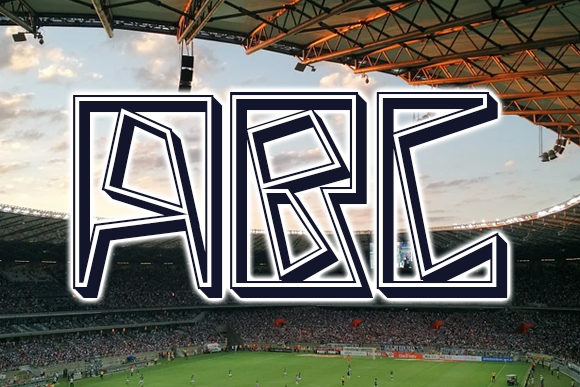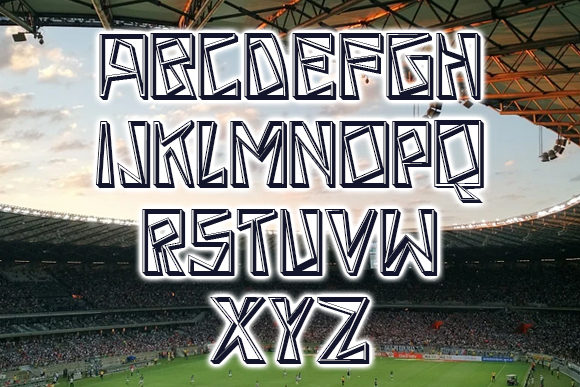
Gabaritos Font: Elevate Your Designs with Geometric Elegance
Are you tired of using the same old fonts for your designs? Look no further than Gabaritos Font, an incredibly cool, geometrically shaped display font that’s sure to take your work to the next level. With its unique and stylish aesthetic, Gabaritos Font is perfect for designers and crafters looking to add a touch of sophistication and modernity to their projects.
What is Gabaritos Font?
Gabaritos Font is a display font that boasts a geometric shape, making it a standout from more traditional fonts. Its sleek and modern design makes it perfect for use on posters, flyers, prints, and any other design project where you want to make a statement. Whether you’re a professional designer or a crafty DIY enthusiast, Gabaritos Font is sure to inspire your creativity and help you create stunning visual content.
Key Features of Gabaritos Font
- Geometric Shape: Gabaritos Font features a unique geometric shape that’s both stylish and modern.
- Display Font: Designed specifically for display purposes, Gabaritos Font is perfect for headlines, titles, and other prominent text elements.
- Versatile: Gabaritos Font can be used for a wide range of design projects, from posters and flyers to prints and digital content.
Why Use Gabaritos Font?
So why should you choose Gabaritos Font for your designs? Here are just a few reasons:
- Add Visual Interest: Gabaritos Font adds a touch of visual interest to your designs, making them more engaging and attention-grabbing.
- Stand Out from the Crowd: With its unique geometric shape, Gabaritos Font helps your designs stand out from the crowd and establish a strong brand identity.
- Perfect for Modern Designs: Gabaritos Font is perfect for modern designs that require a sleek and sophisticated aesthetic.
- Endless Possibilities: With Gabaritos Font, the possibilities are endless. Use it for posters, flyers, prints, and more to create stunning visual content.
Tips and Tricks for Using Gabaritos Font
Here are some tips and tricks for getting the most out of Gabaritos Font:
- Use it for Headlines: Gabaritos Font is perfect for headlines and titles, where its geometric shape can really shine.
- Experiment with Colors: Gabaritos Font looks great in a wide range of colors, so don’t be afraid to experiment and find the perfect hue for your design.
- Pair it with Other Fonts: Gabaritos Font pairs well with other fonts, so try combining it with a sans-serif font for a modern look.
In conclusion, Gabaritos Font is an incredibly cool, geometrically shaped display font that’s perfect for designers and crafters looking to elevate their designs. With its unique and stylish aesthetic, Gabaritos Font is sure to add a touch of sophistication and modernity to any project. So why wait? Download Gabaritos Font today and explore its endless possibilities!